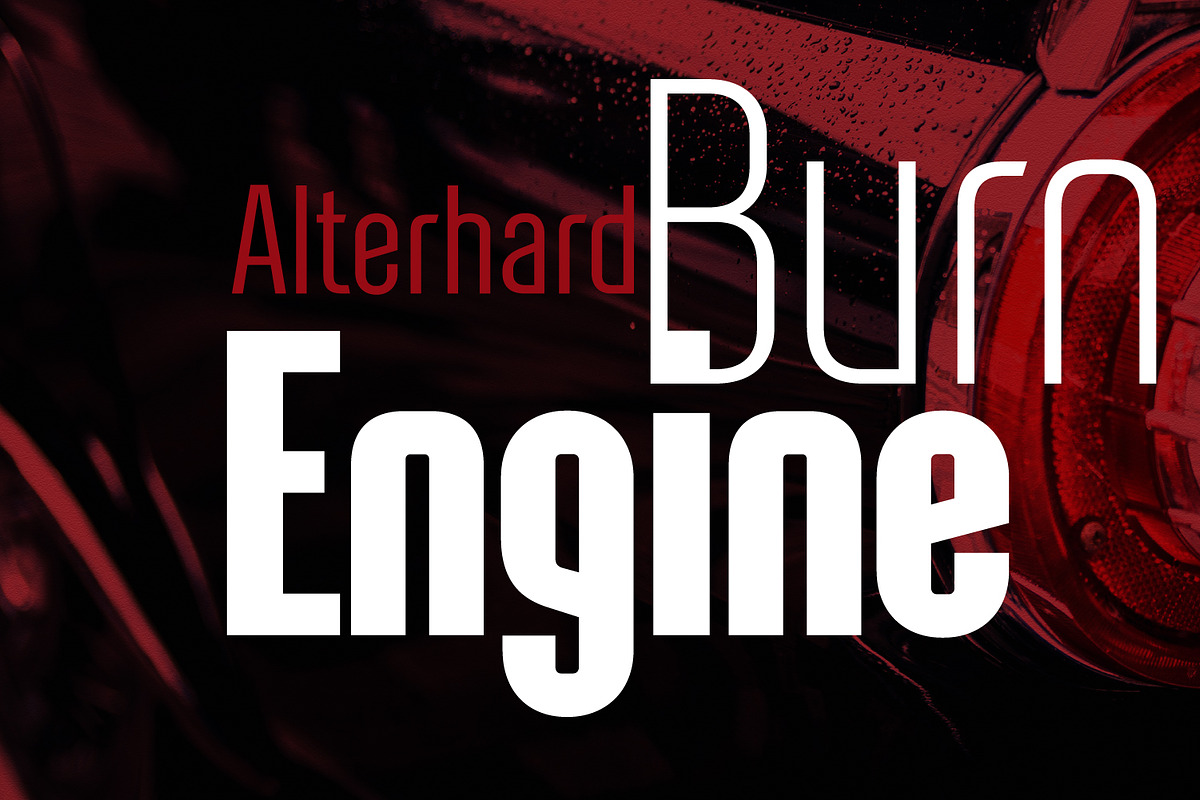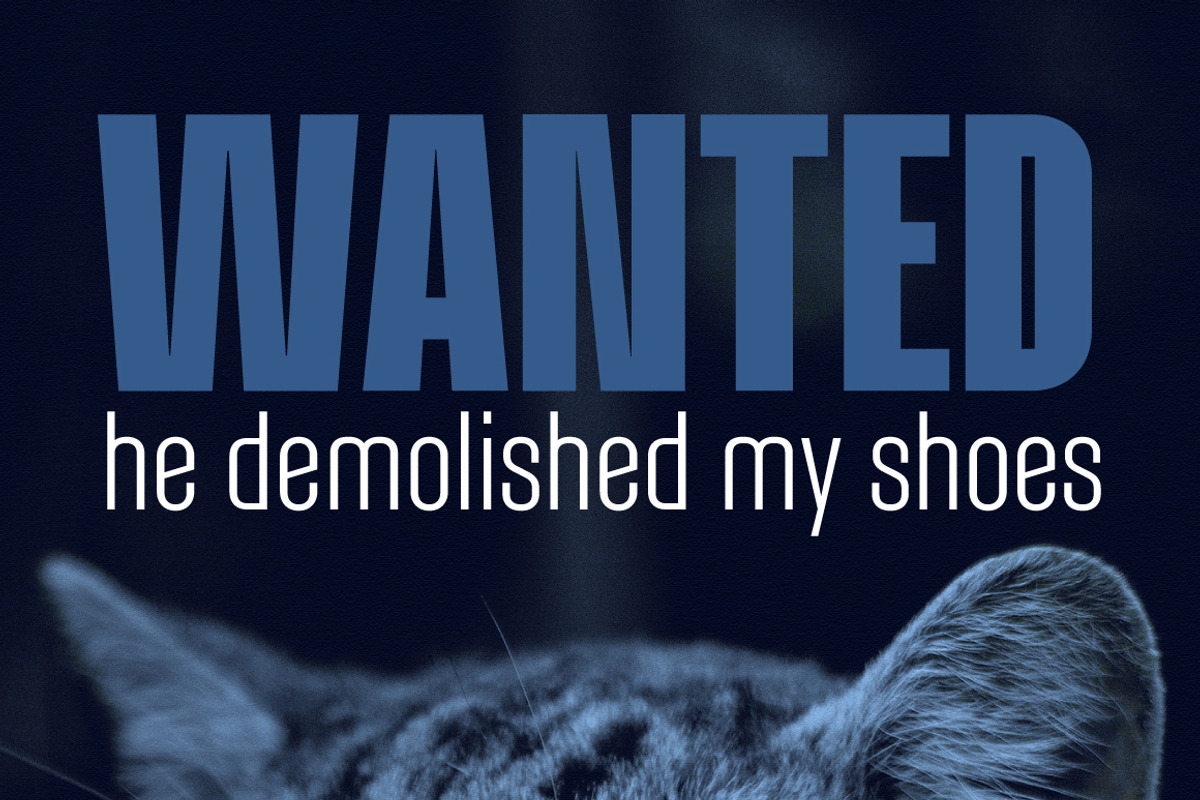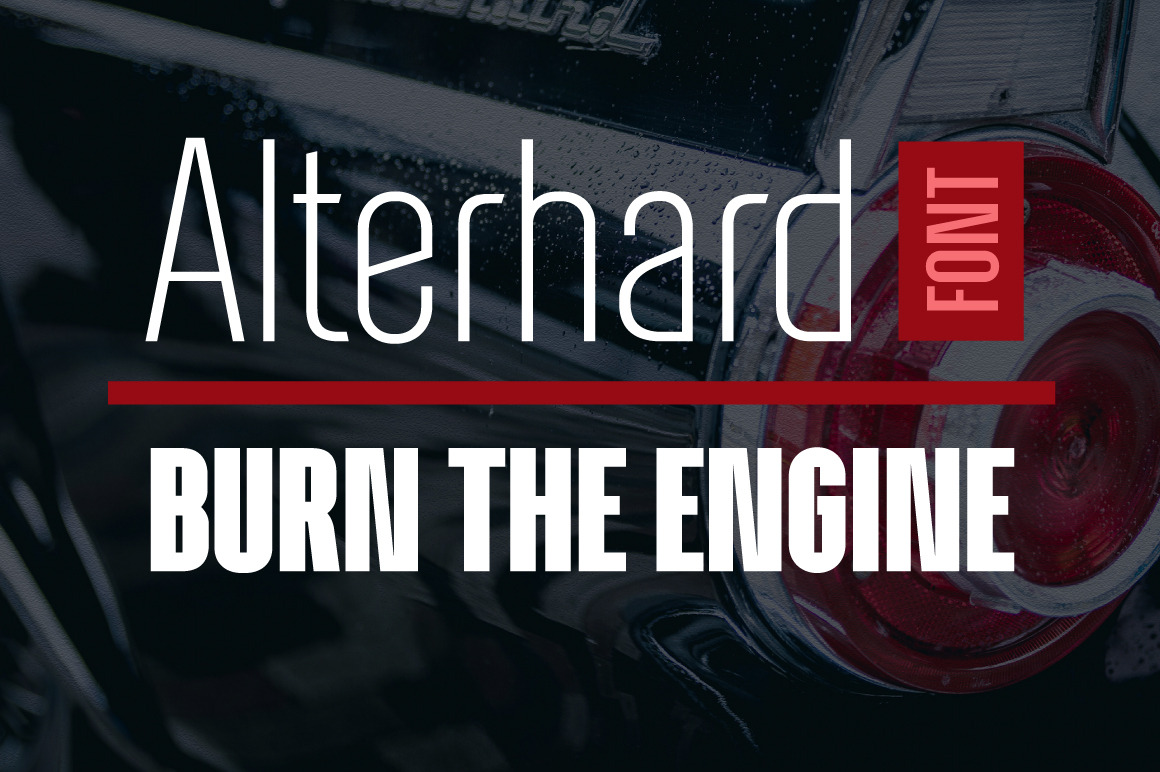
Alterhard Condensed Strict Font
The Alterhard font combines the unique artistry of great styles of the early twentieth century and at the same time looks organically among the moderns. This allows you to use the font Alterhard in almost any field of design such as corporate identity, typography, posters, web design and other design scopes.
In the set there are 6 font sizes, which provides a rich typography.
If you need a strict, but at the same time artistic Artnoova font of your choice.